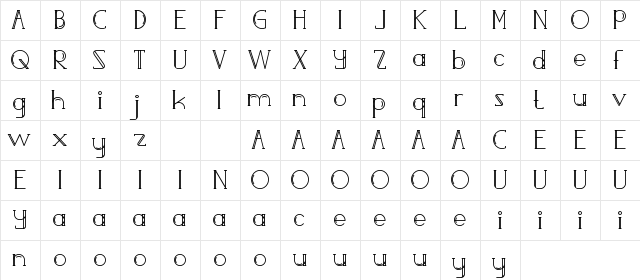
Rainray Demo Serif Regular
| Foundry | Edric Studio |
| Designer | Deyan & Sarah Suci P |
Design Context for Rainray Demo Serif Typeface
Rainray Demo Serif brings classic typographic sensibility to the table — its serifs and measured letterforms reflect centuries of print heritage.
Pro Tip: Use Rainray Demo Serif for editorial body copy and considered headline work. Pair with a neutral sans for UI elements or captions to create a classic hierarchy.